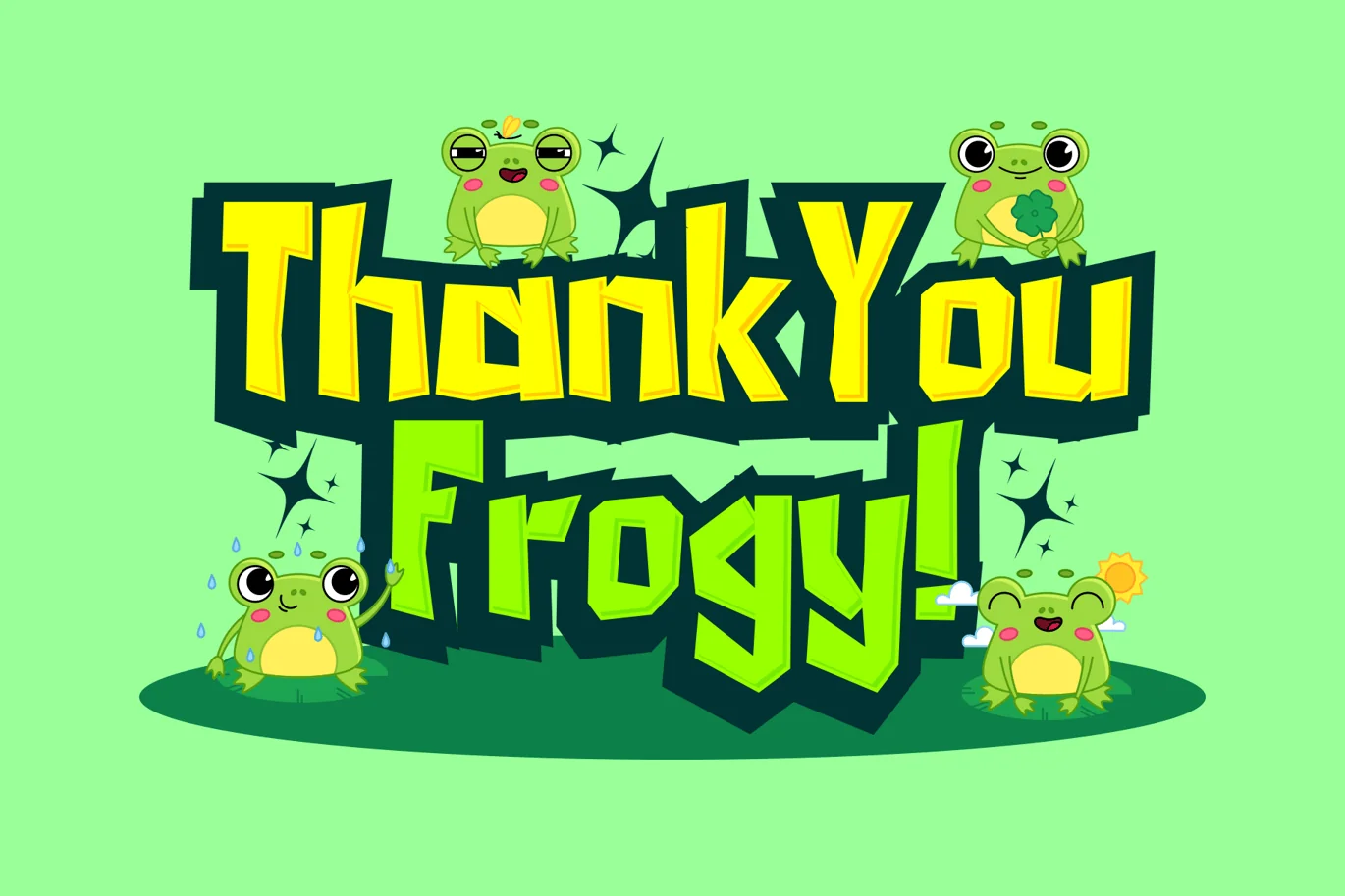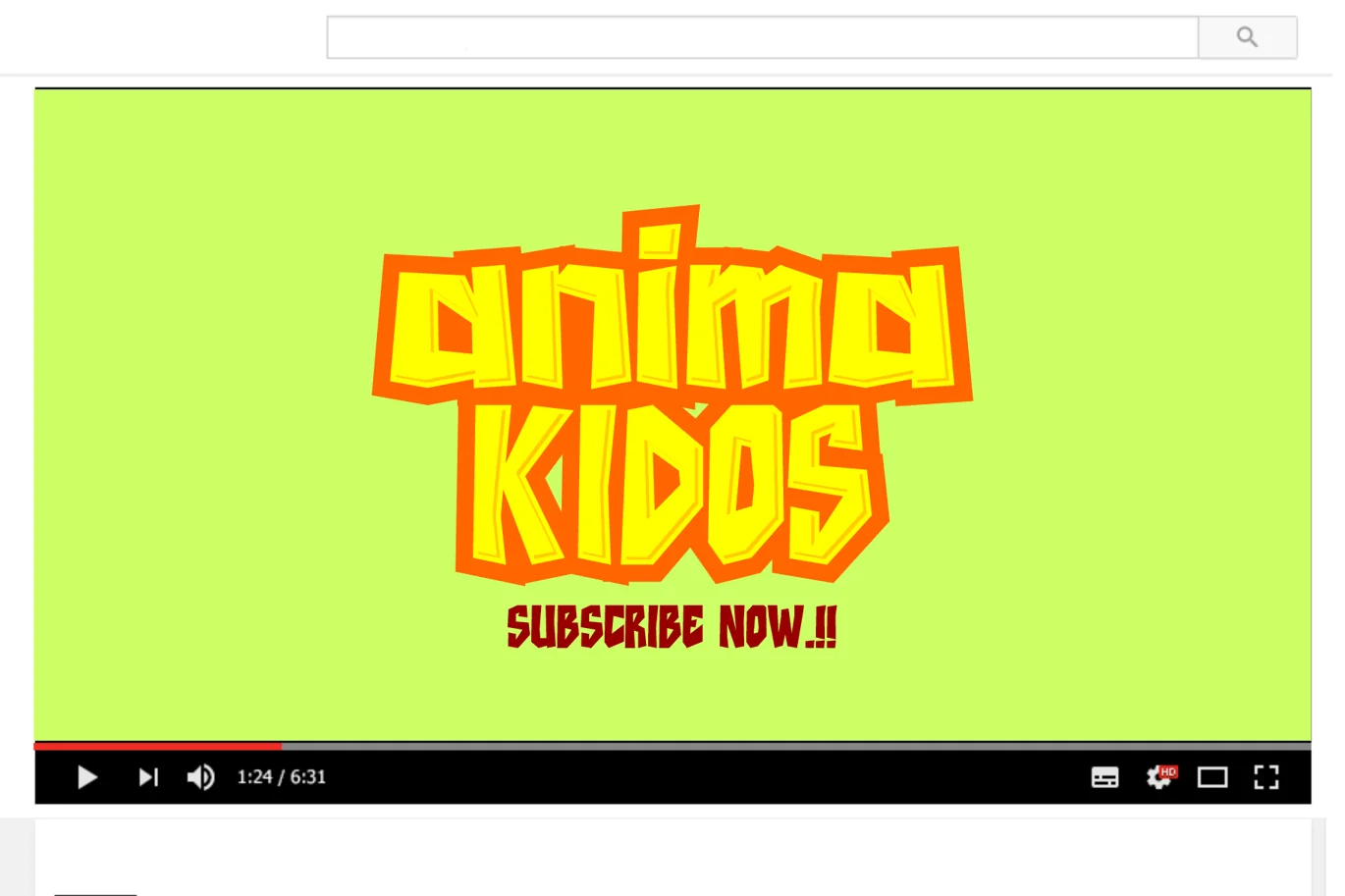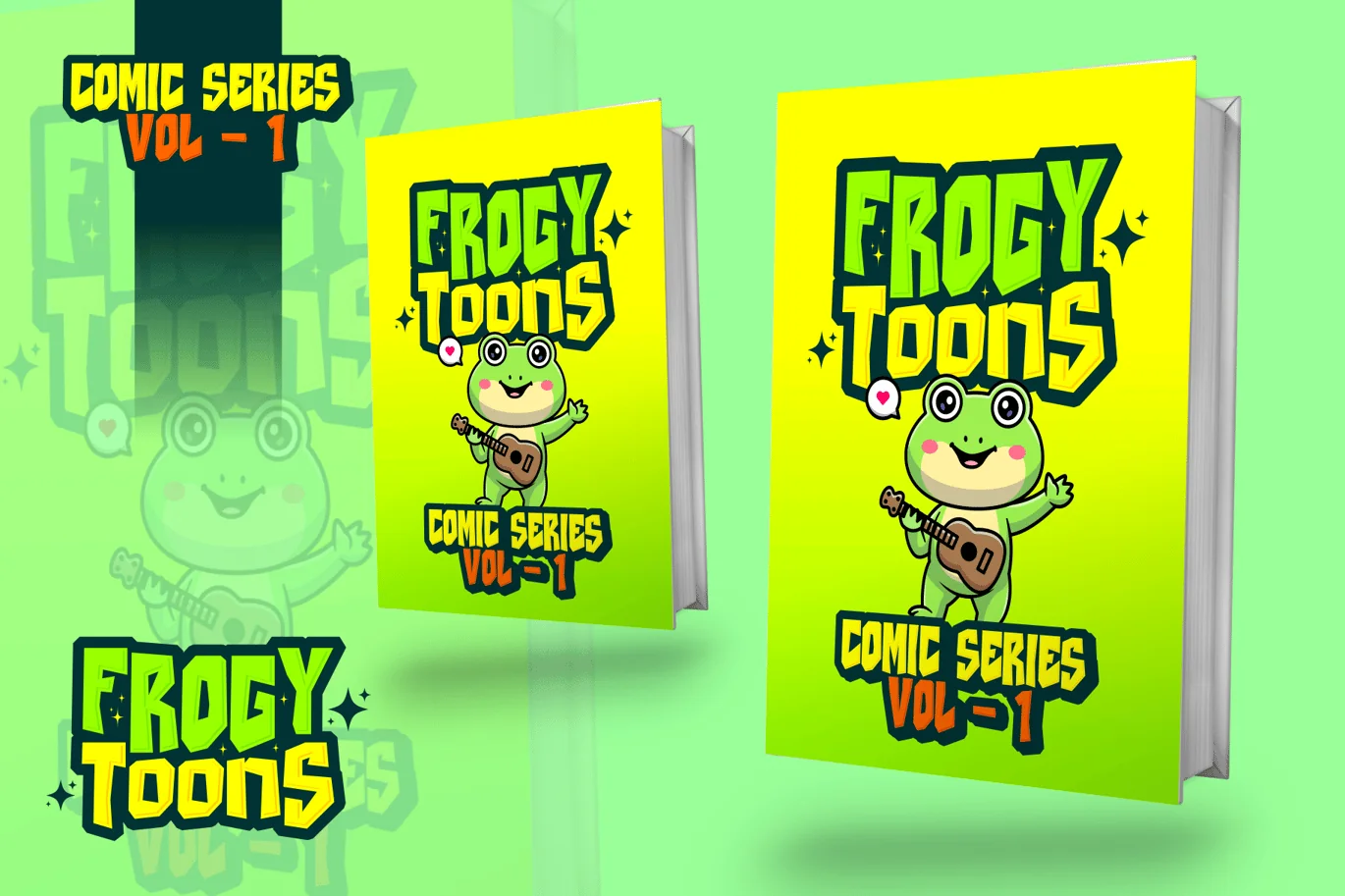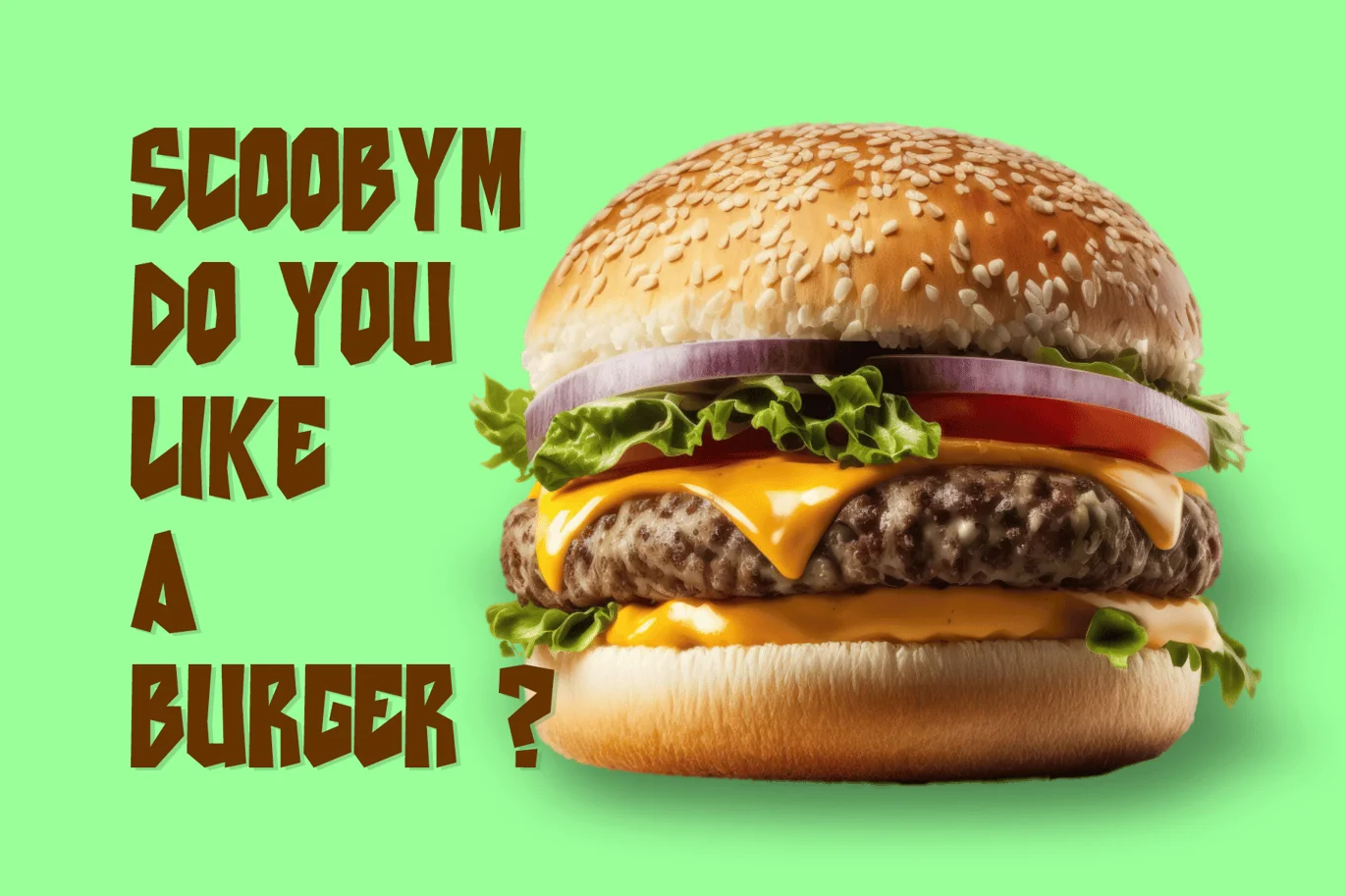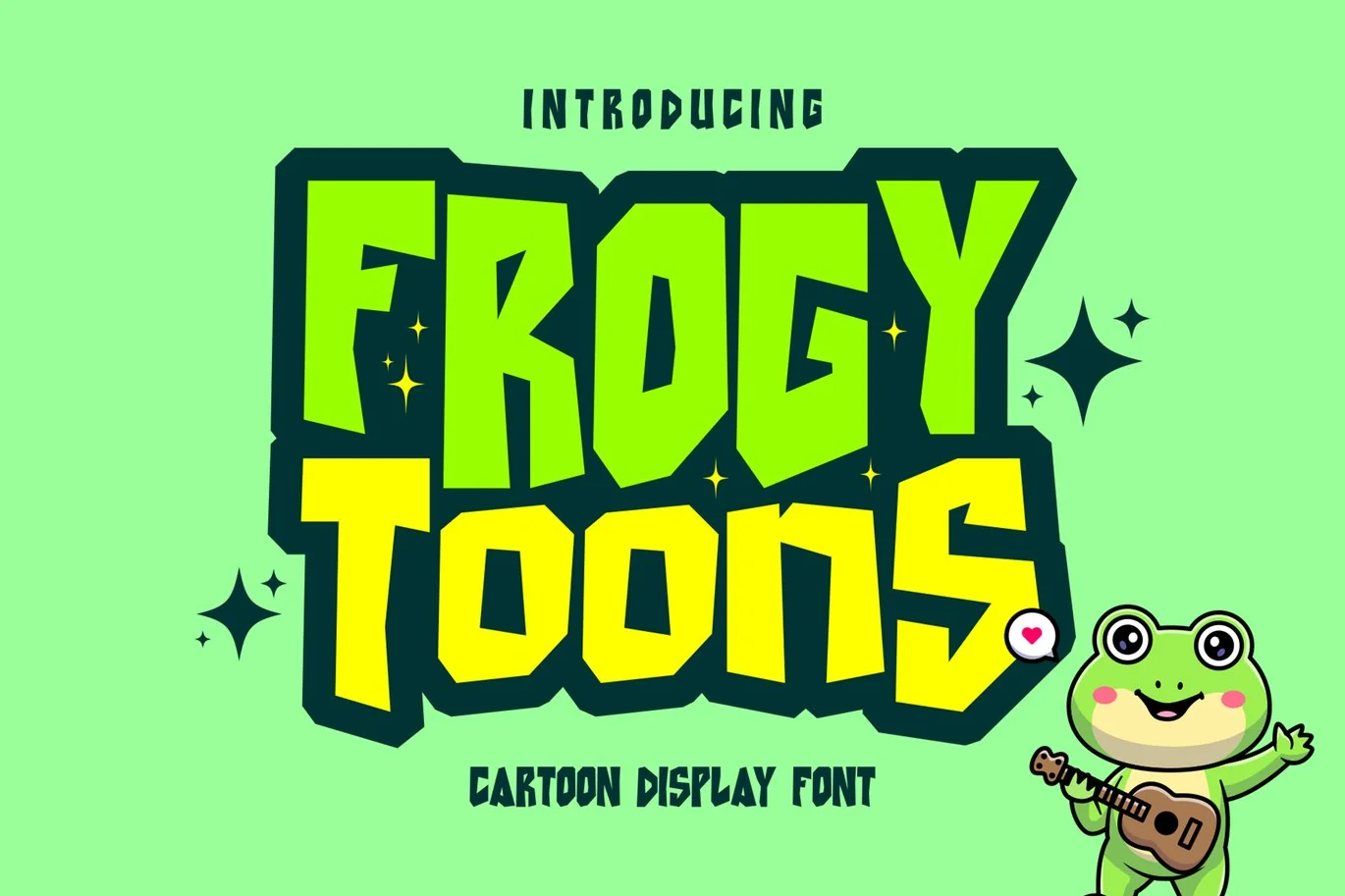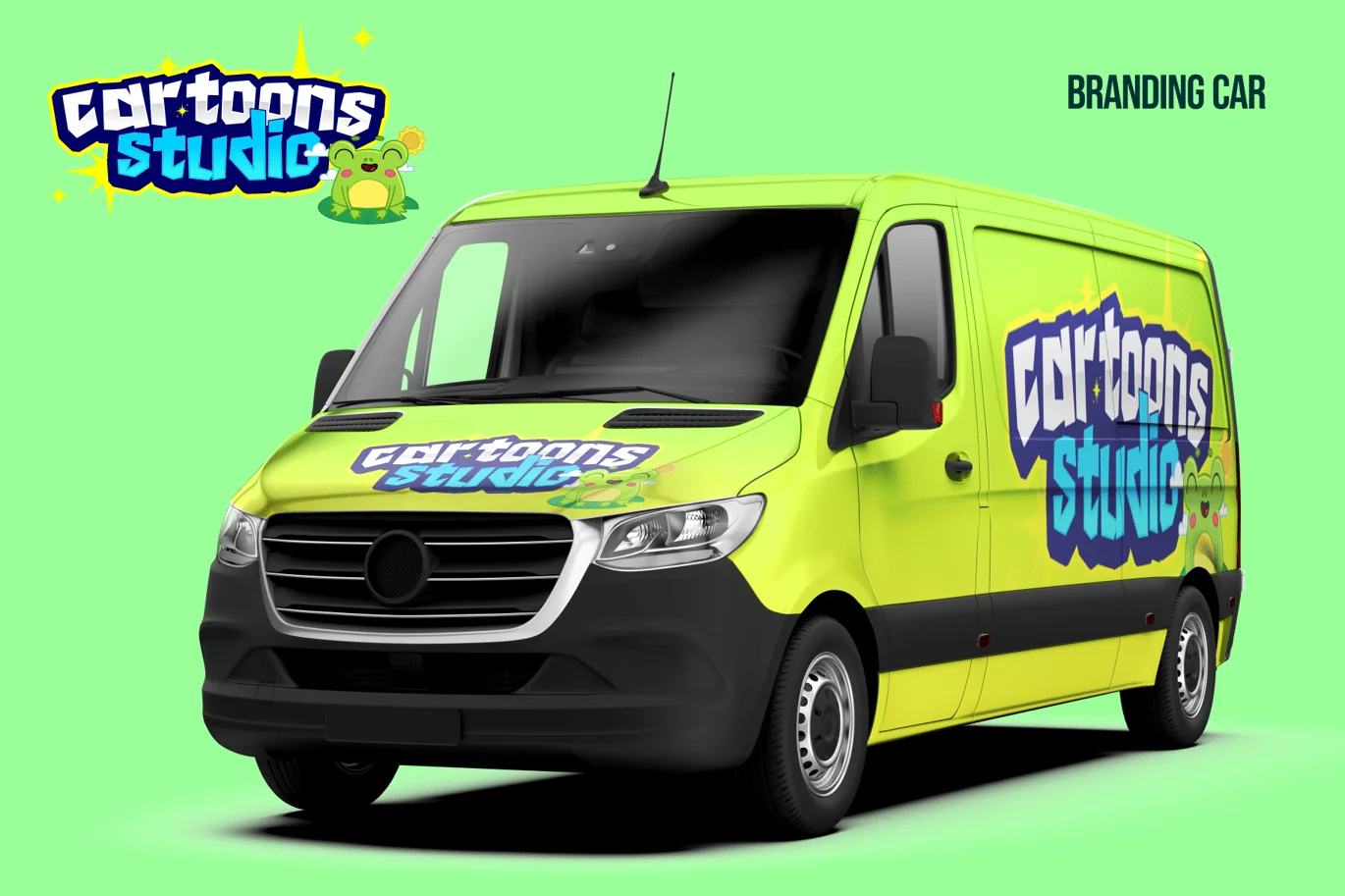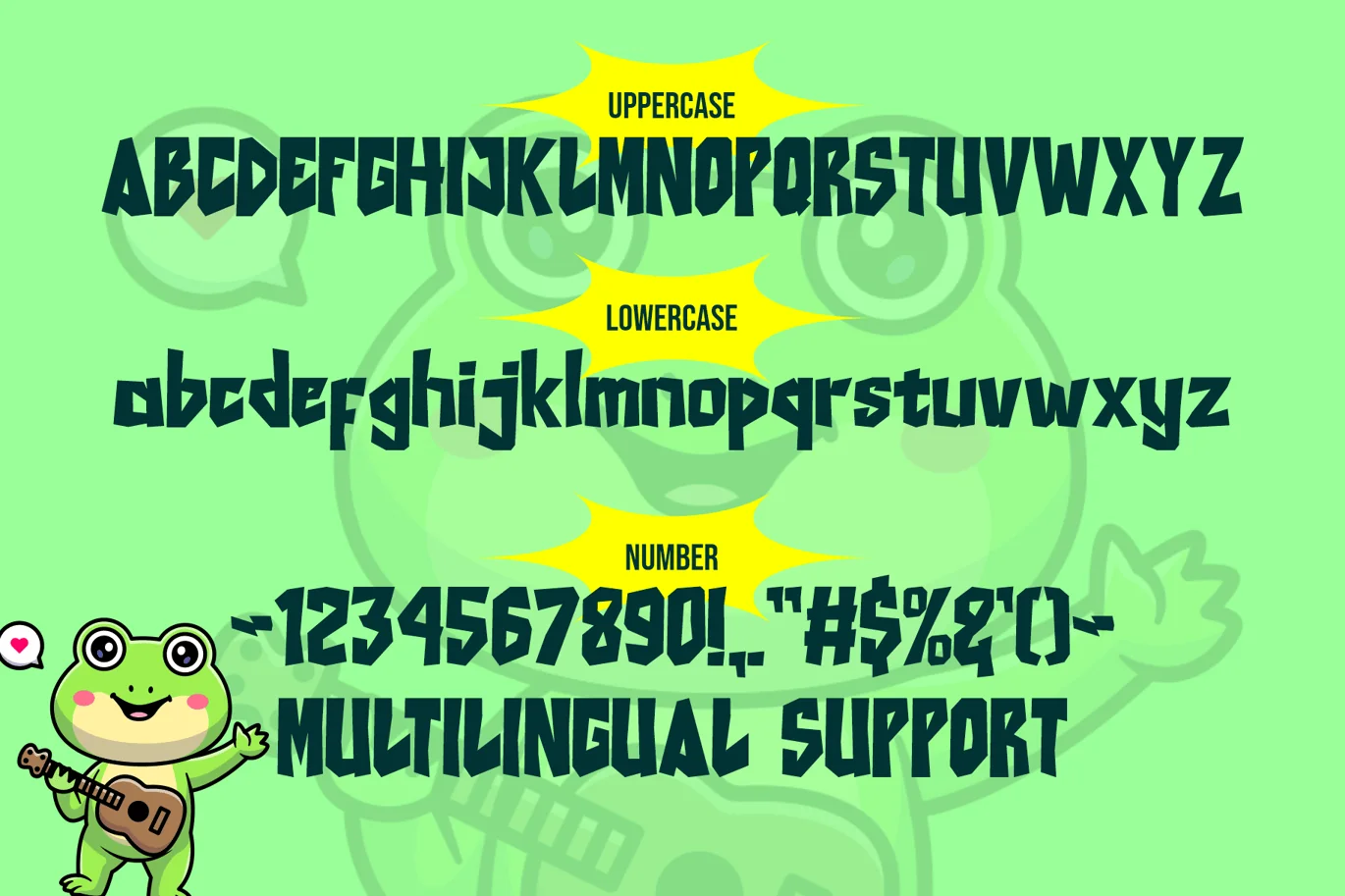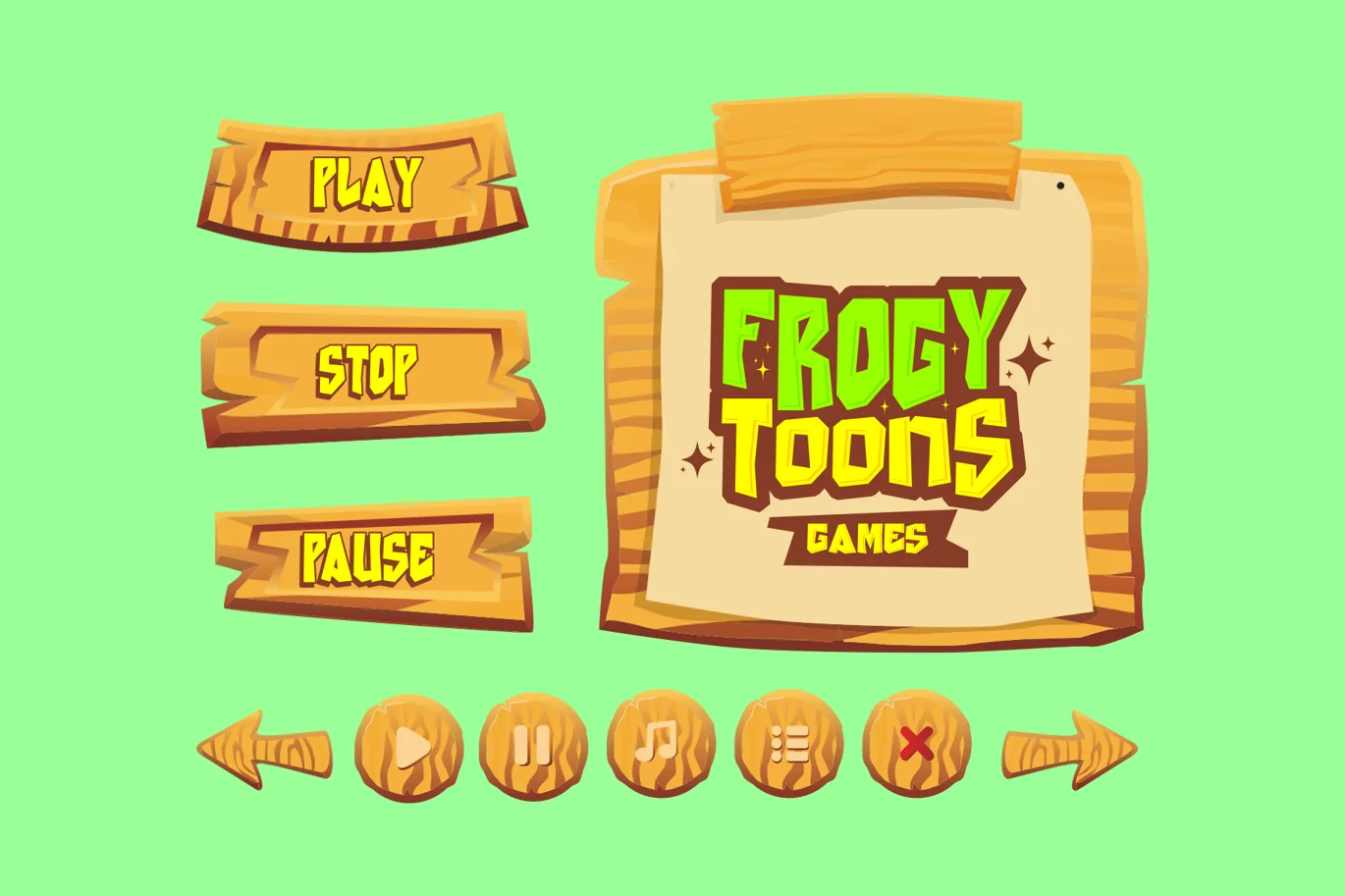
Frogy Toons – Cartoon Display font
Frogy Toons is a delightful and animated cartoon display font that radiates fun and creativity. Its playful, bouncy lettering adds a lighthearted touch to your designs, making it perfect for children’s books, comics, or any project that calls for a whimsical and imaginative feel. Frogy Toons infuses your text with a sense of joy and charm, ensuring your designs are both engaging and full of character, leaving a lasting impression on your audience.